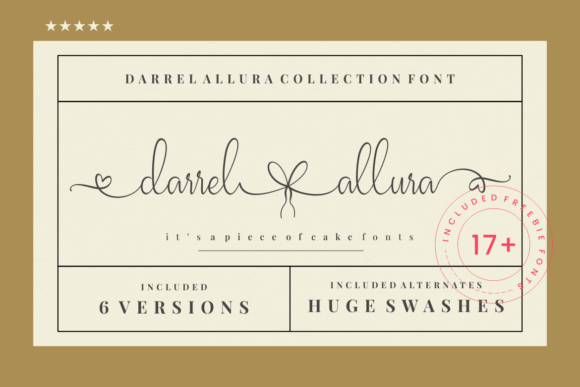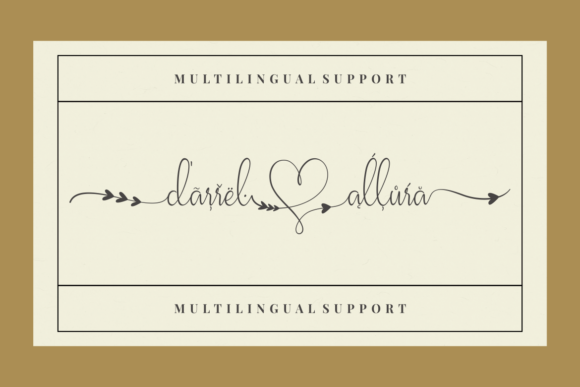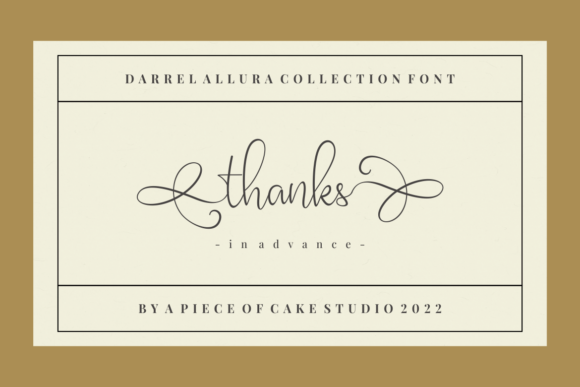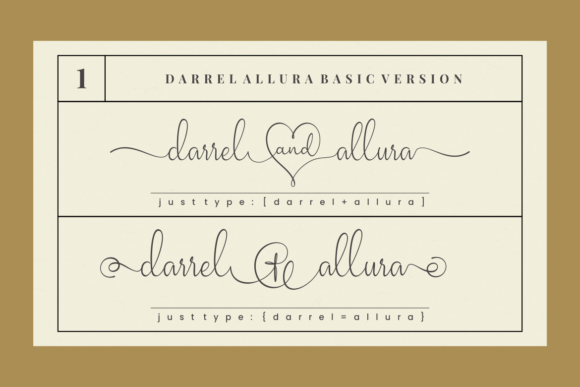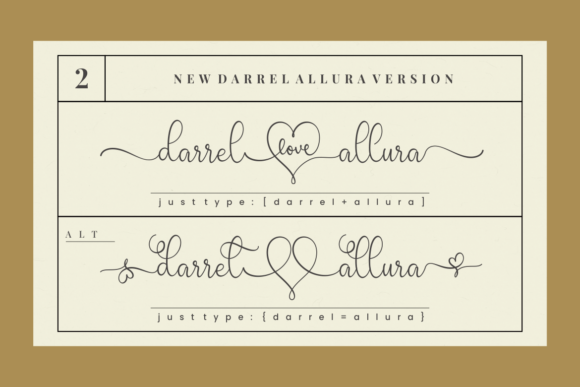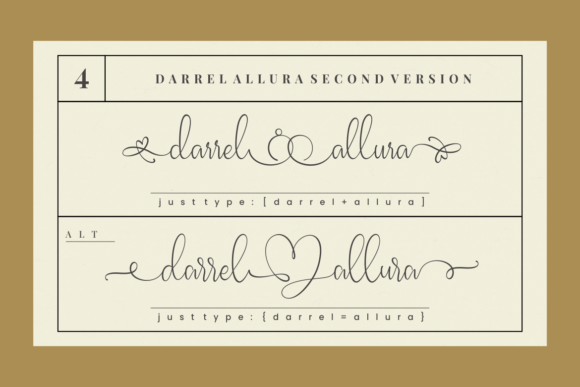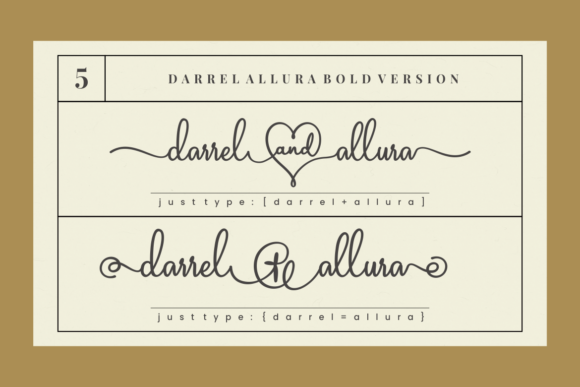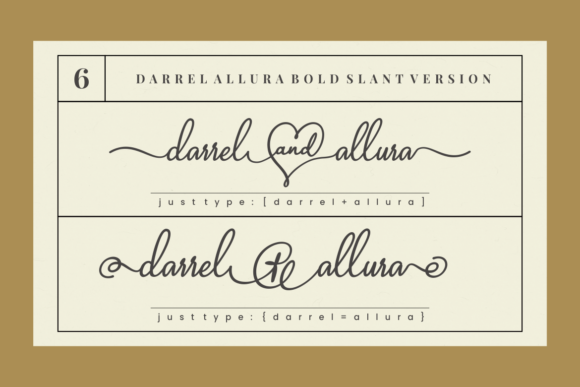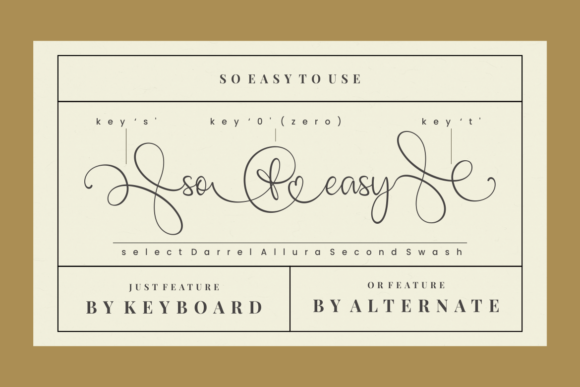
Darrel Allura Collection Font
About Darrel Allura Collection Font
The Darrel Allura Collection is a enchanting script font that has been meticulously crafted to exude a sense of elegance and charm. Whether you’re seeking fonts for social media use on platforms like Instagram or looking for calligraphy scripts to enhance your DIY projects, this font collection is designed to transform any creative concept into a work of art.
One of the standout features of the Darrel Allura Collection is its magical and graceful appearance. The script font’s intricate and flowing letterforms give it a sense of sophistication that can elevate the visual appeal of your designs. With its touch of elegance, the font collection is versatile and adaptable, making it suitable for a wide range of creative purposes.
Whether you’re crafting a social media post, designing a logo, creating custom stationery, or working on a handmade project, the Darrel Allura Collection adds a unique and captivating element to your work. Its calligraphic nature brings a sense of authenticity and craftsmanship to your designs, making them stand out and capture the attention of your audience.
The PUA (Private Use Area) encoding of the font means that you have easy access to a variety of special characters, alternates, and swashes, providing you with an extensive toolkit to customize your designs. This enables you to add a personalized and distinctive touch to your projects, enhancing their visual appeal and overall impact.
In summary, the Darrel Allura Collection is a captivating script font that infuses your creative endeavors with a touch of elegance and magic. With its versatility, attention to detail, and PUA encoding, this font collection empowers you to transform your ideas into visually stunning and artistic creations. Whether you’re a designer, a content creator, or a DIY enthusiast, the Darrel Allura Collection offers a wide range of possibilities to explore and express your creativity.